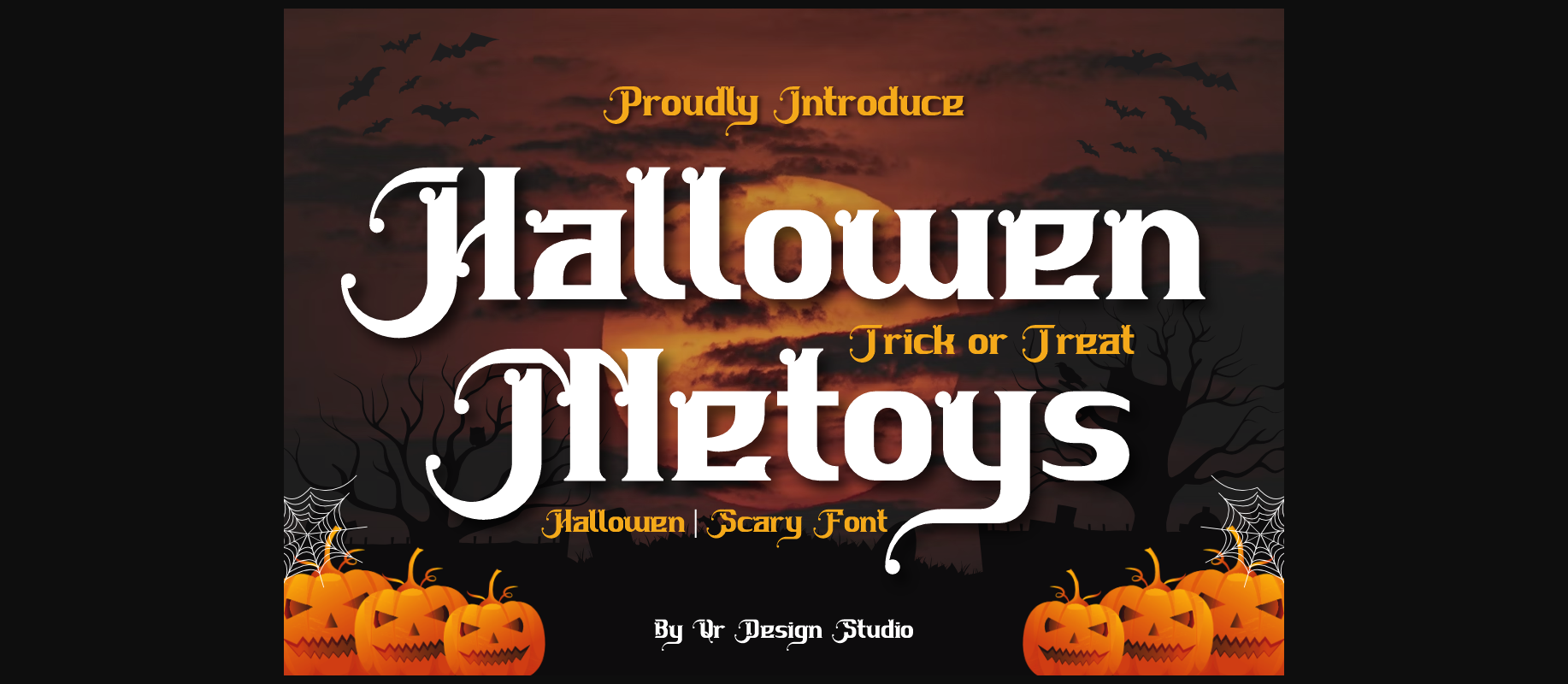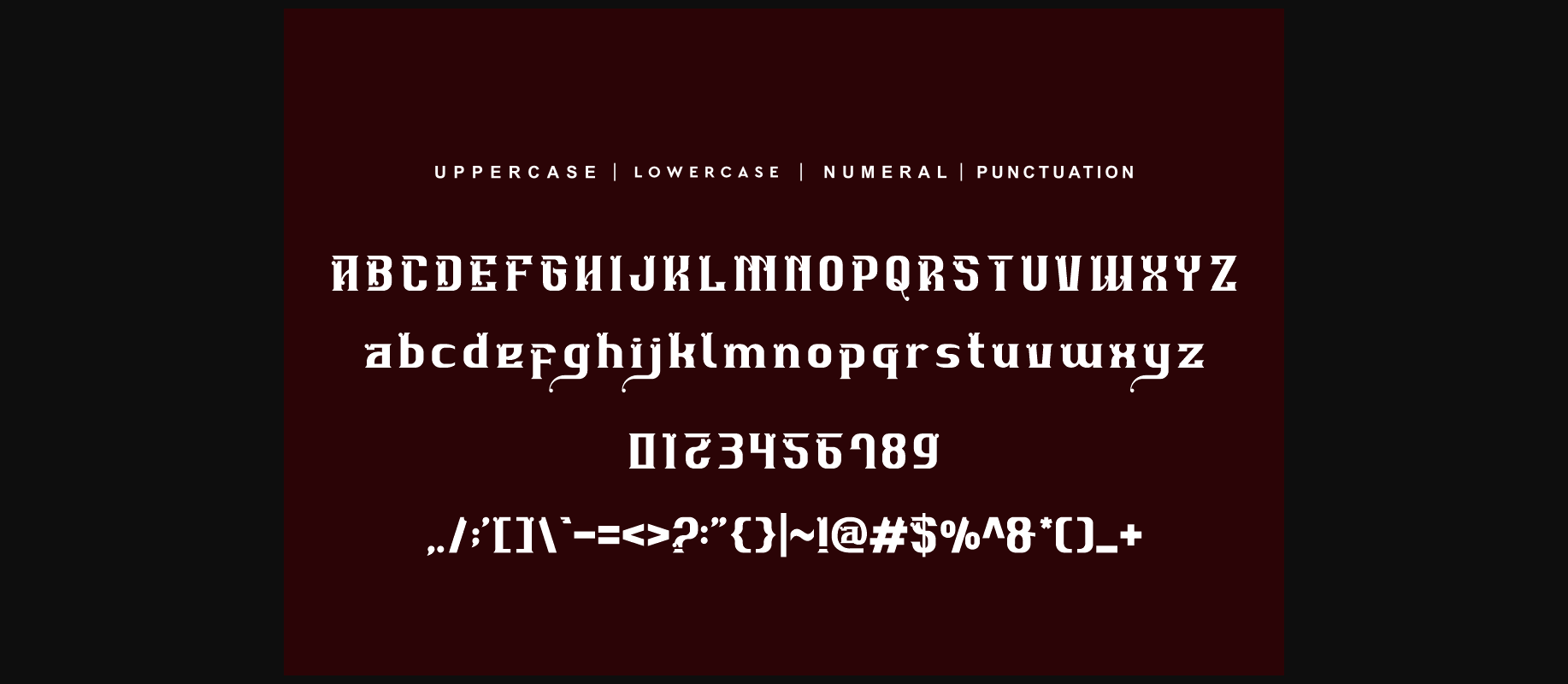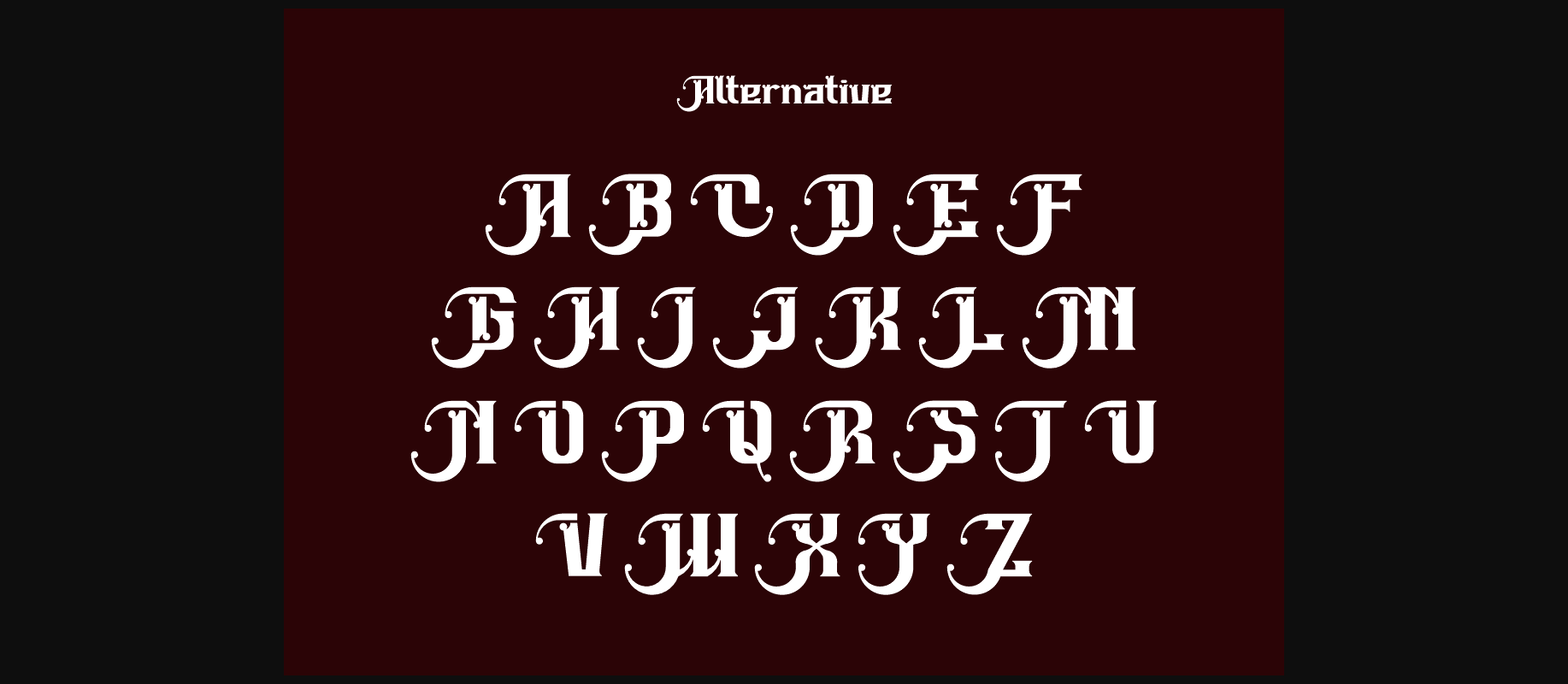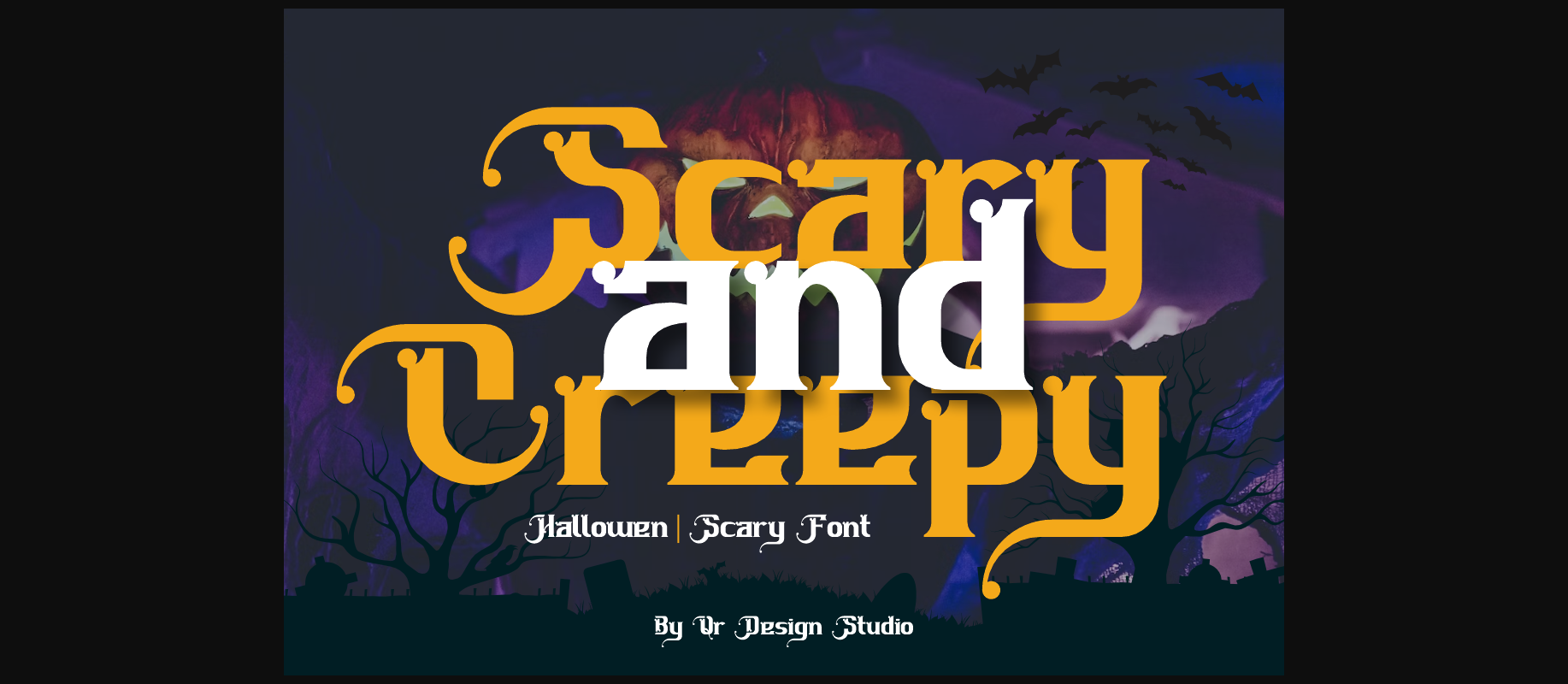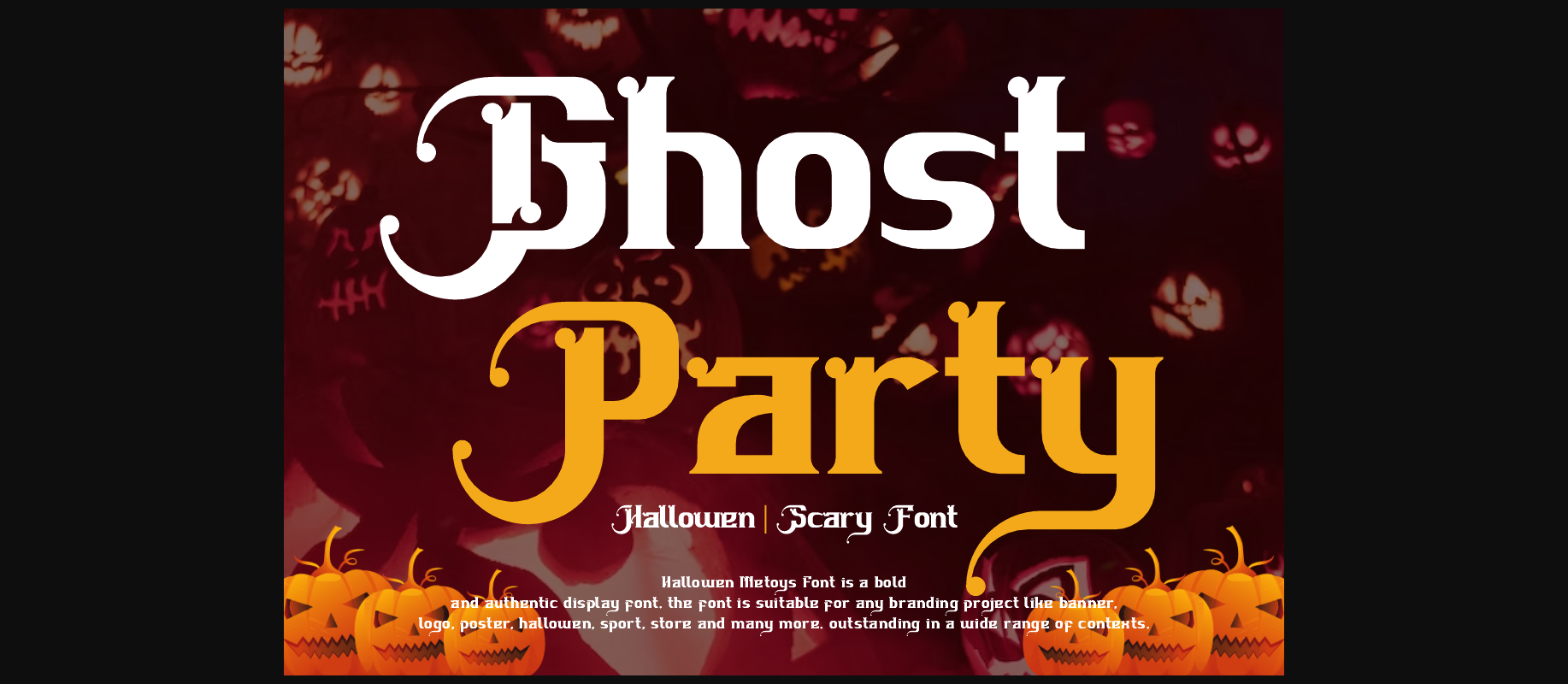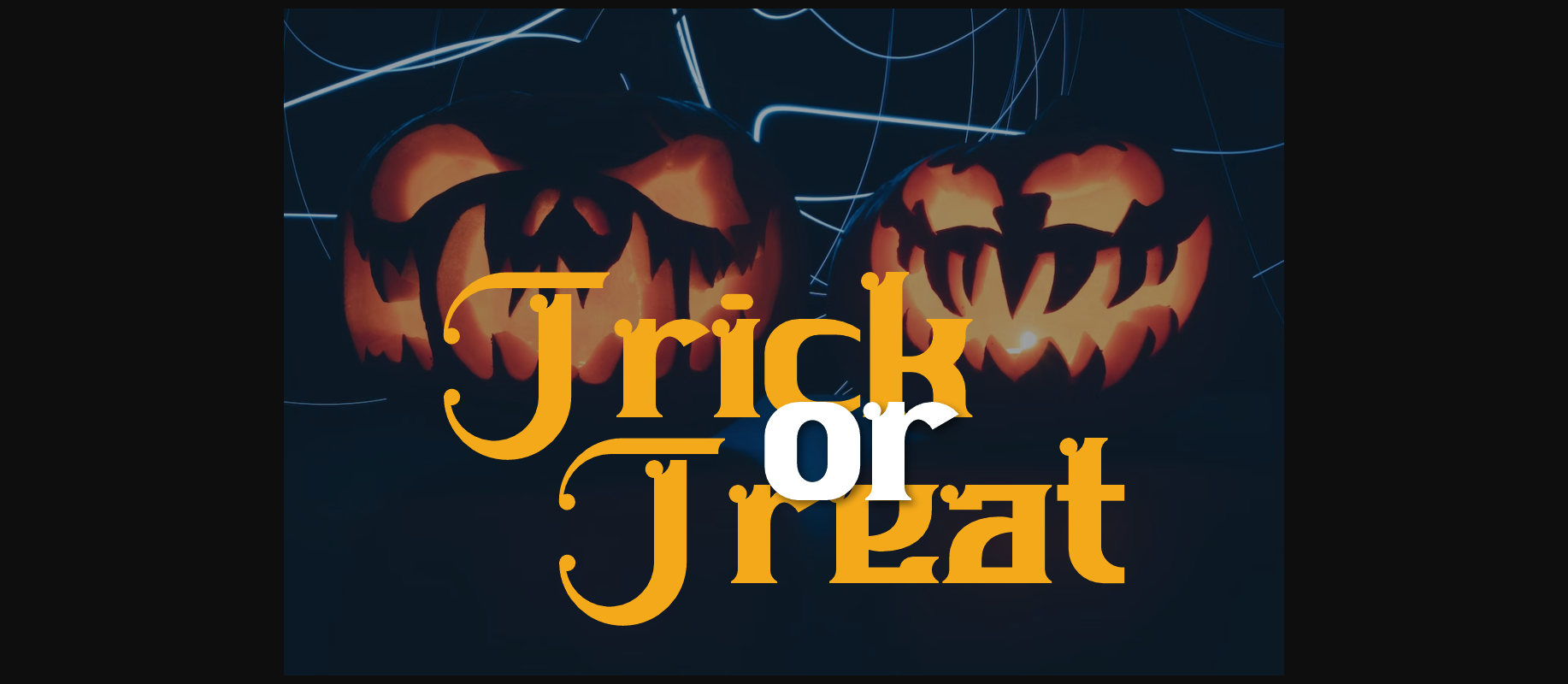
Hallowen Metoys Font
About Hallowen Metoys Font
Hallowen Metoys is a bold and authentic decorative font. It is perfectly used for logos, social media, invitations, business cards, quotes, web designs and so much more.